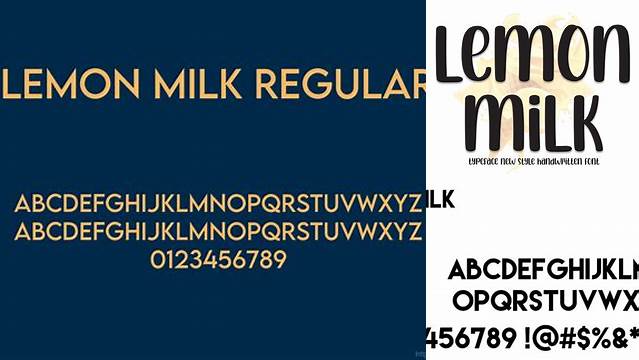
Lemon Milk Regular: Free Font Guide & Download
Free Fonts: Discovering the Charm of Lemon Milk Regular
Hey everyone! Today, we're diving headfirst into the wonderful world of free fonts, specifically taking a close look at the ever-popular Lemon Milk Regular. If you're a designer, a blogger, or just someone who loves a good typeface, you're in for a treat. We'll explore what makes Lemon Milk Regular so special, where you can snag it for free (legally, of course!), and how to use it to make your projects pop. So, grab your favorite beverage, and let's get started!
Free fonts like Lemon Milk Regular are a game-changer for anyone looking to elevate their design game without breaking the bank. The accessibility of high-quality, free fonts has democratized design, allowing creators of all levels to access professional-looking typography. This is especially crucial for smaller businesses, budding designers, or anyone who wants to spruce up their personal projects. Before the rise of easily accessible free fonts, one had to invest heavily in expensive font licenses, making it difficult for those without deep pockets to compete in a visually driven world. Now, with just a few clicks, you can download and install fonts that rival those used by the biggest brands. This not only saves money but also provides a vast library of styles to choose from, enabling endless creative possibilities. Lemon Milk Regular is just one example of the many amazing free fonts available.
Lemon Milk Regular, in particular, is a display font known for its clean, modern aesthetic. It's a versatile choice that can add a touch of elegance to any project. The font's rounded letterforms give it a friendly and approachable vibe, making it perfect for a wide range of applications. This font is suitable for various design projects like logos, headings, posters, and social media graphics. Using Lemon Milk Regular, you can easily create visually appealing content that captures attention and communicates your message effectively. Its clean lines and readability also make it a great option for body text in smaller blocks, where other more decorative fonts might appear cluttered. However, it is best suited for display purposes rather than long passages of text. Its friendly and approachable vibe also means it's a solid choice for brands wanting to create a welcoming and relatable image.
Using Lemon Milk Regular in Your Projects
Okay, you've got your hands on Lemon Milk Regular. Now, how do you actually use it? The possibilities are endless, but here are a few ideas to get you started:
- Logos and Branding: Its clean, modern feel makes it great for logos and branding materials. It's perfect for conveying a sense of simplicity and approachability.
- Headings and Titles: Use it for headlines to grab attention. The font's friendly style makes it perfect for drawing readers in.
- Social Media Graphics: Create eye-catching posts and graphics for social media. Lemon Milk Regular looks great on platforms like Instagram and Facebook.
- Posters and Flyers: Design posters and flyers with a modern and stylish look. This font is ideal for creating visual impact.
- Website Design: Consider using it for headings and call-to-action buttons on your website to add a touch of elegance.
When using Lemon Milk Regular, remember that font size and spacing are key. Adjust the font size to ensure readability and make sure there's enough space between the letters and lines. This is particularly important when using the font in headings or logos, where the visual impact is crucial. You can also experiment with different colors and backgrounds to create visual contrast and ensure that the text is easily visible. Another important factor is using the right font pairing. Consider combining Lemon Milk Regular with a contrasting font to add visual interest and create a balanced design. This might involve using a simple sans-serif font for body text to complement Lemon Milk Regular. Be creative and experiment to find what works best for your project. Test your designs on different devices and platforms to make sure that the font renders correctly and that the design is visually appealing across all devices. The proper usage of this font can make your project look more professional and stand out.
Conclusion: Unleashing the Power of Free Fonts